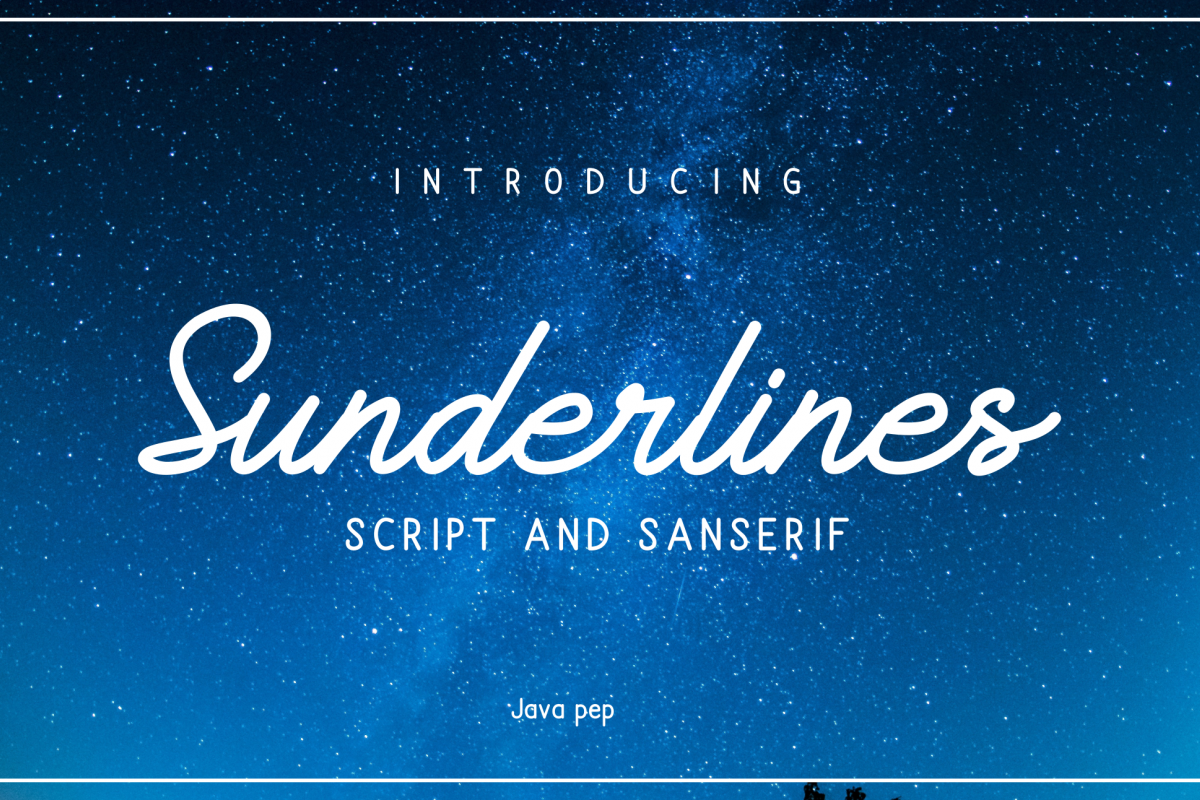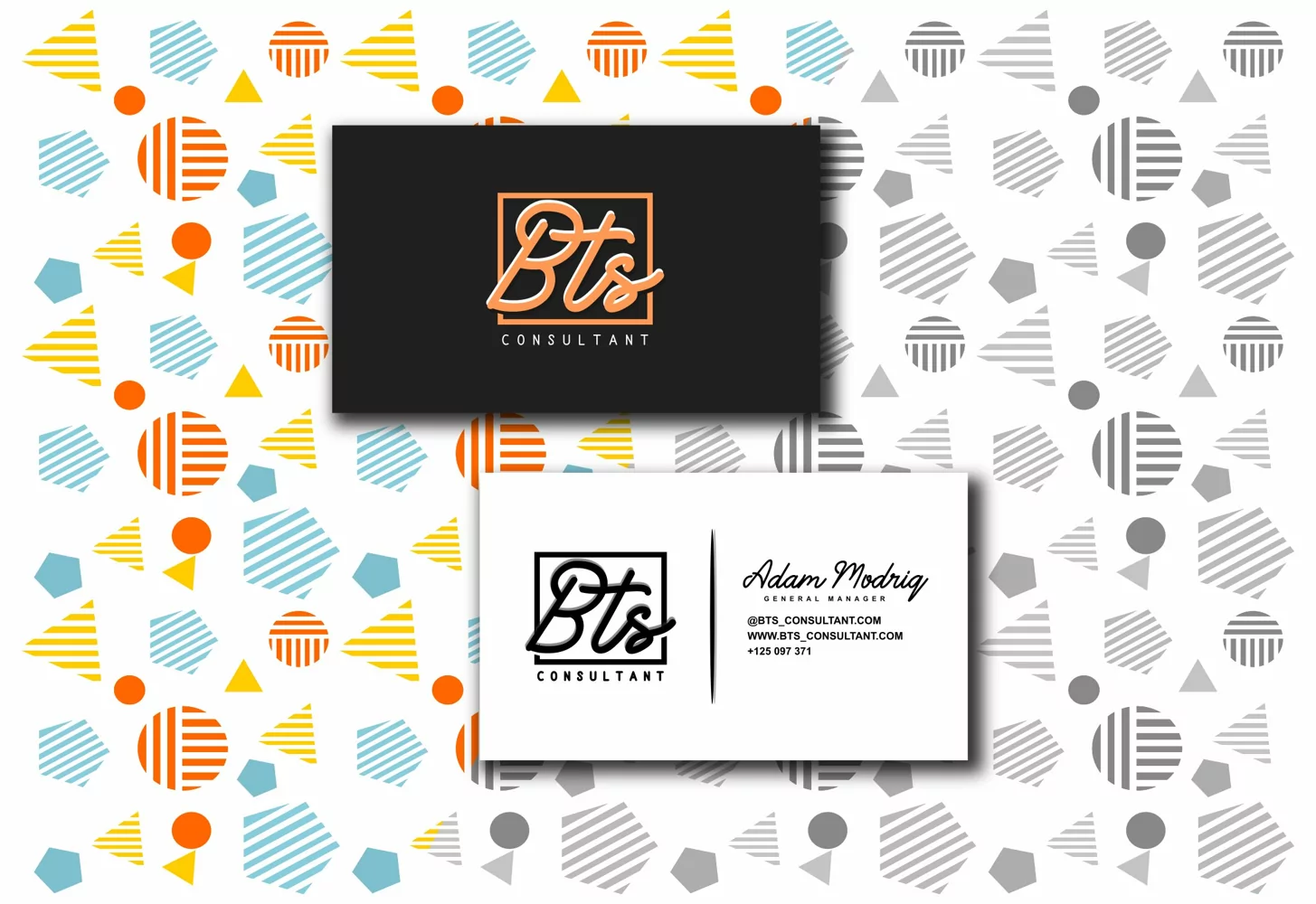
Introducing-
Sunderlines - Script and Sanserif. This font have smooth charaters but still elegant.
Sunderlines is suitable for logotype, signature, quotes and tagline, brand design websubtitle, and etc.
Sunderlines is already support for multilingual languange, let's make awesome with "Sunderlines"
2. Features font
- Uppercase & lowercase
- Numeral & punctuation
- Multilingual support